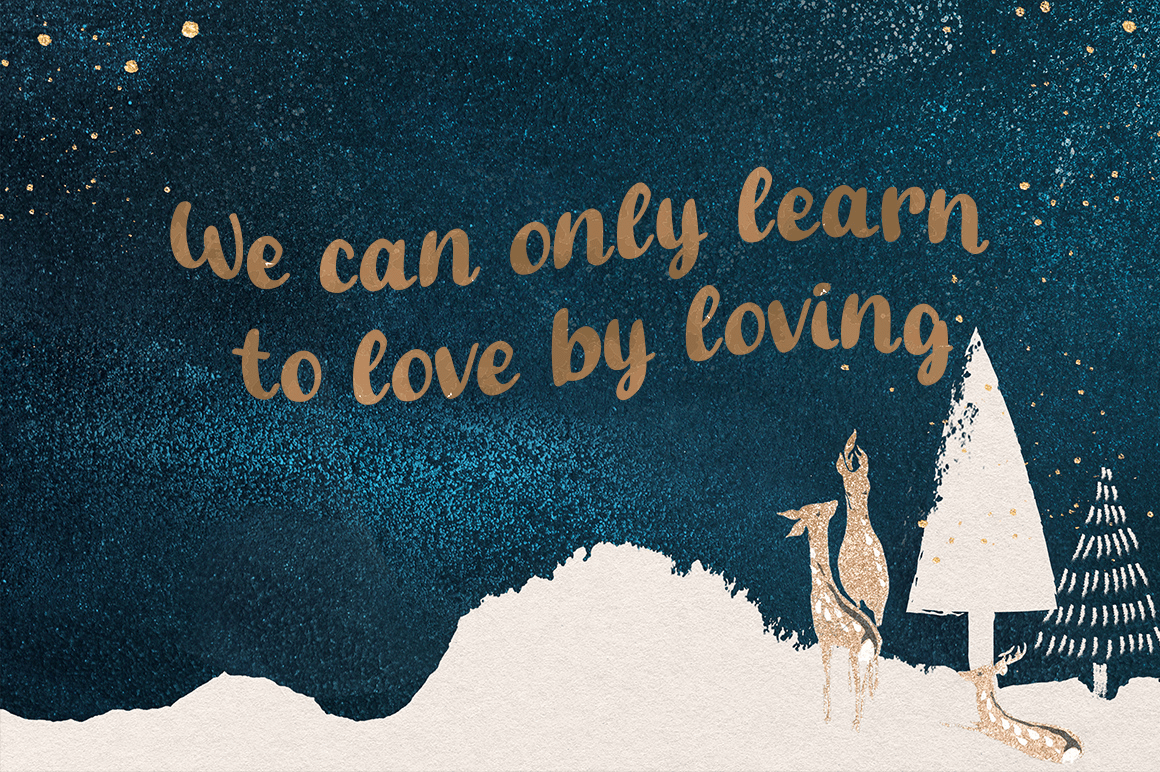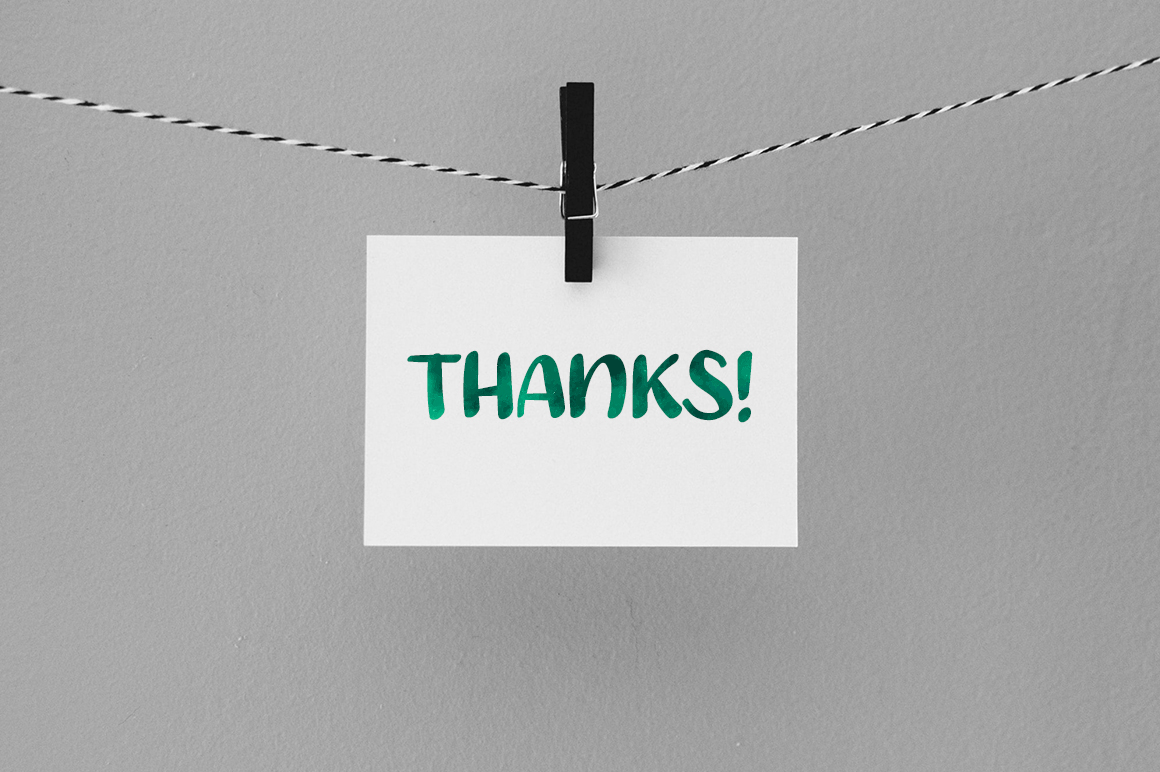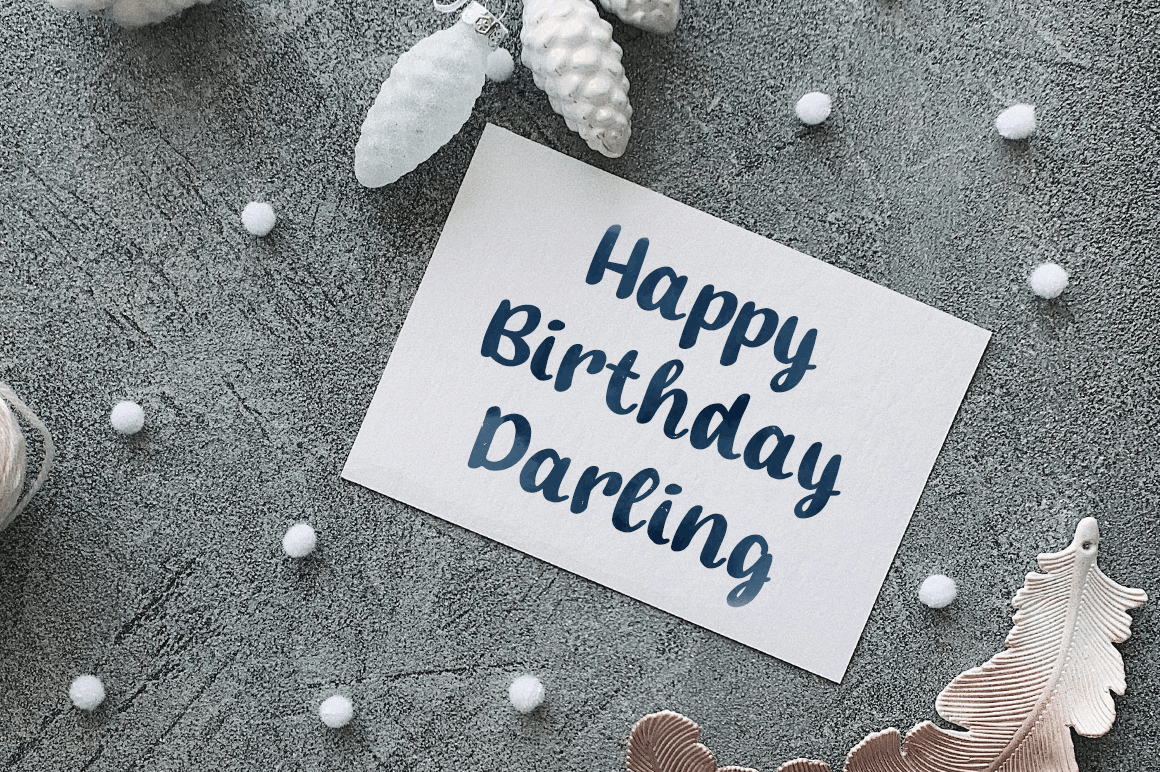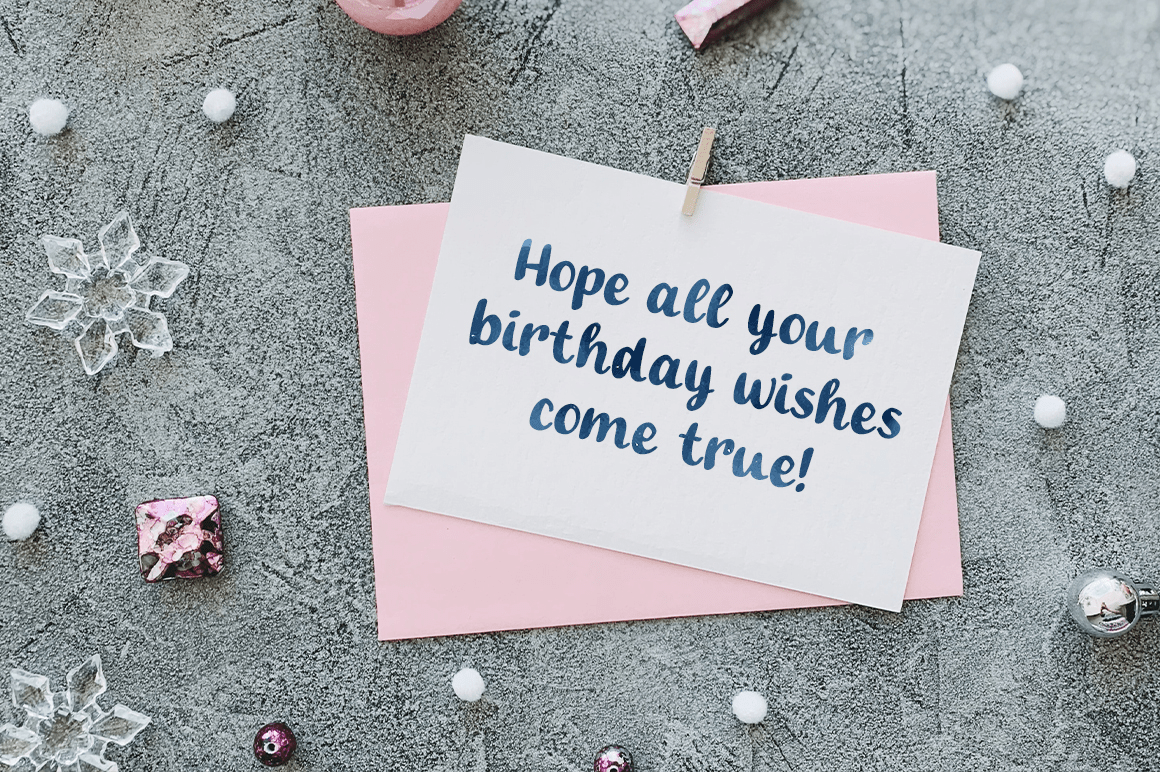
About Hello Lovely
Hello Lovely! ?A new fresh ans modern hand lettered font with decorative characters and a dancing baseline. So beautiful on invitation like handicraft, greeting cards, branding materials, business cards, quotes, posters, and more design concepts. Features:…